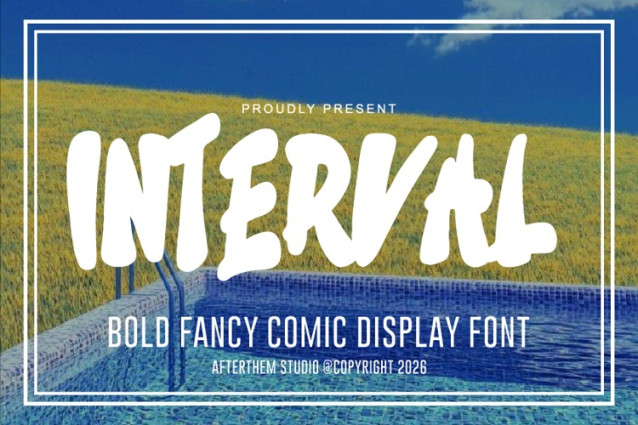
Interval Font
Interval Font is a simple and modern display font suitable for quotes, logos, headings, titles, and many more. Use it on any of your creative projects, and your designs will become outstanding!